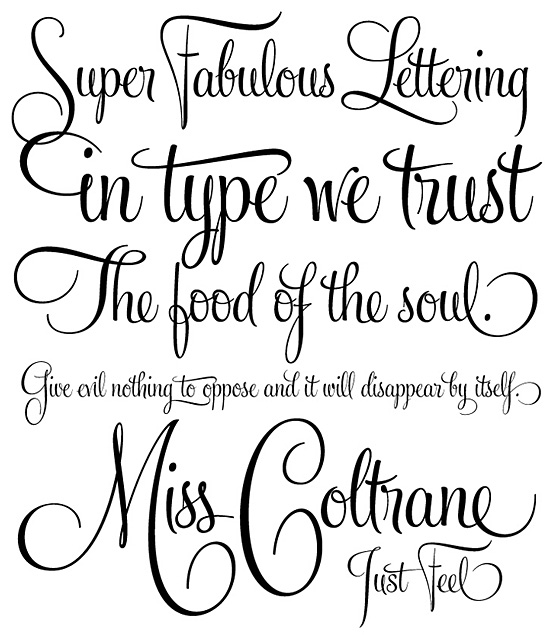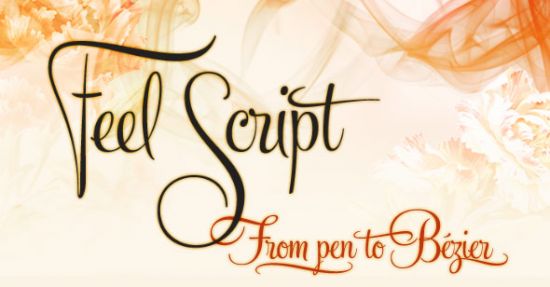
Feel Script (Veer)
Between 1935 and 1955, many American calligraphers and
letterers laid down their pens for new type technologies. But a few
refused to give in. They saw those technologies not as progress
but as an art-devaluing, salary-reducing threat.
Among those rebels was New Yorker Rand Holub, best known for
his logo designs, brand signatures, and custom lettering for Macy’s.
In 1958, his Gillot 291 – an upright script done in 1950 – became
the basis of Intertype’s Monterey. Although Monterey included some
reworkings of Holub’s lettering, technological constraints meant
that the bulk of his calligraphic art had to be ignored.
Almost 50 years later, Holub’s original script has found new life in
Feel Script. Designed by Alejandro Paul, Feel presents the lettering
in its entirety, as well as letters redrawn from vintage American
magazine ads (some by Holub himself). Thanks to OpenType, it also
includes many alternates, ligatures, dreamy swashes, and other
strangely beautiful combinations. With over 1,200 characters, Feel
Script is designed for maximum expression.
Endlich eine Alternative zu Zapfino!
Sehr schön.